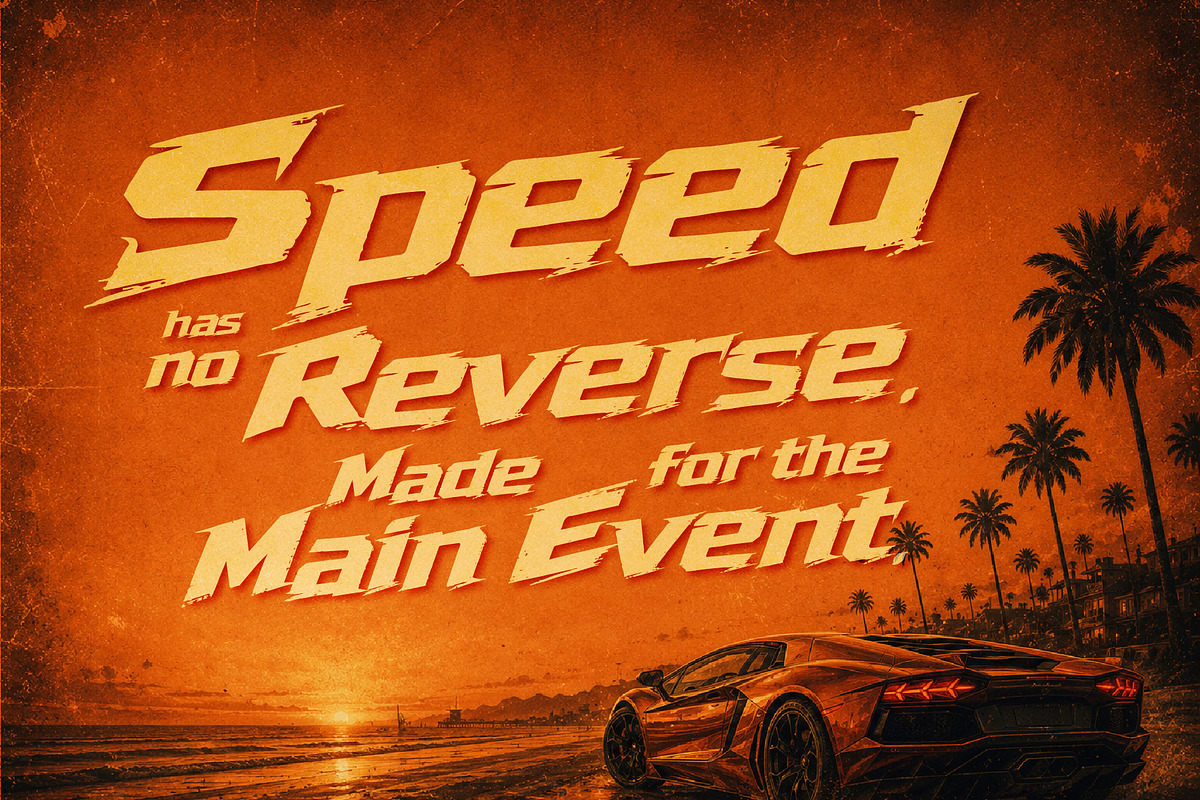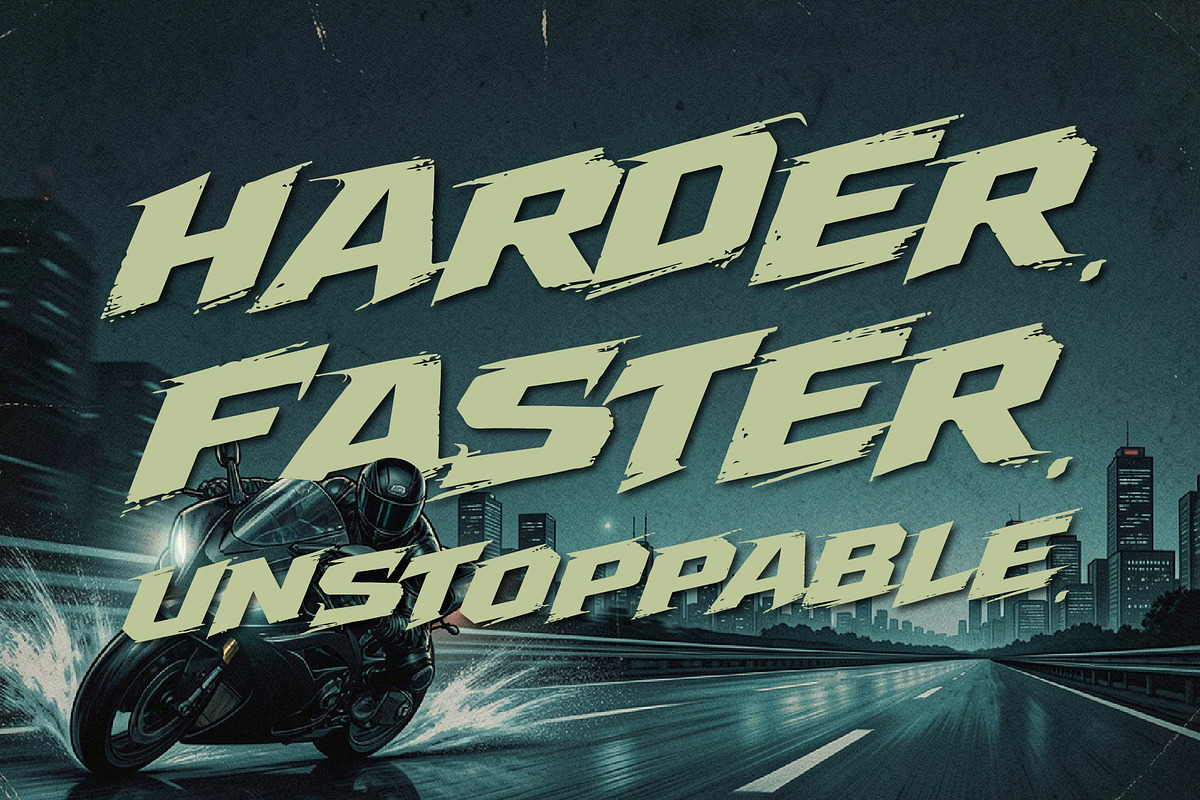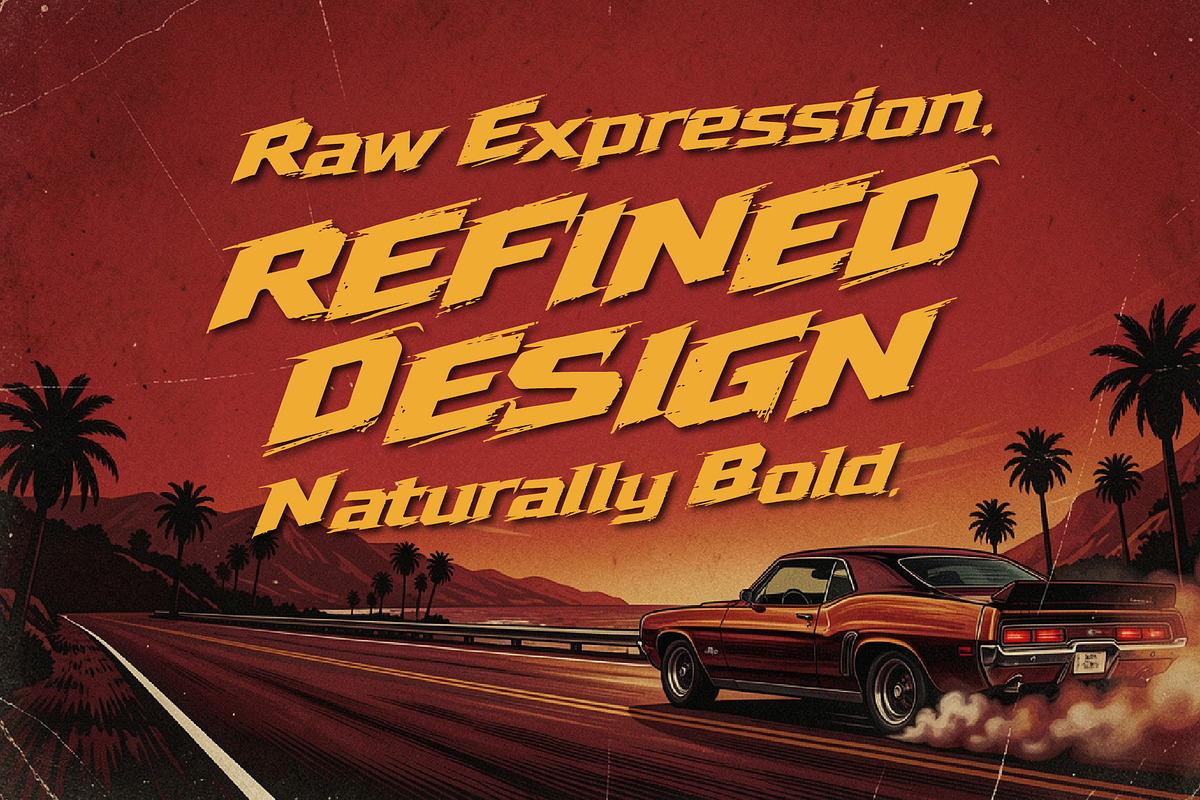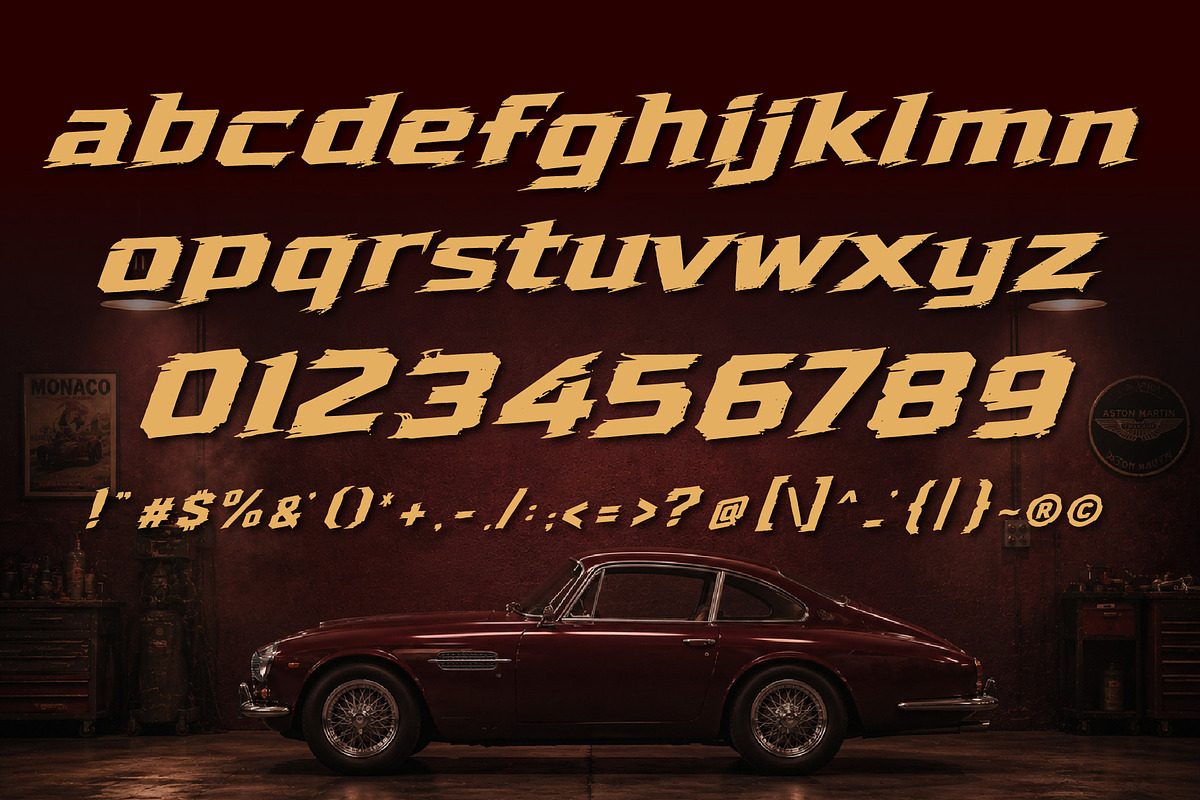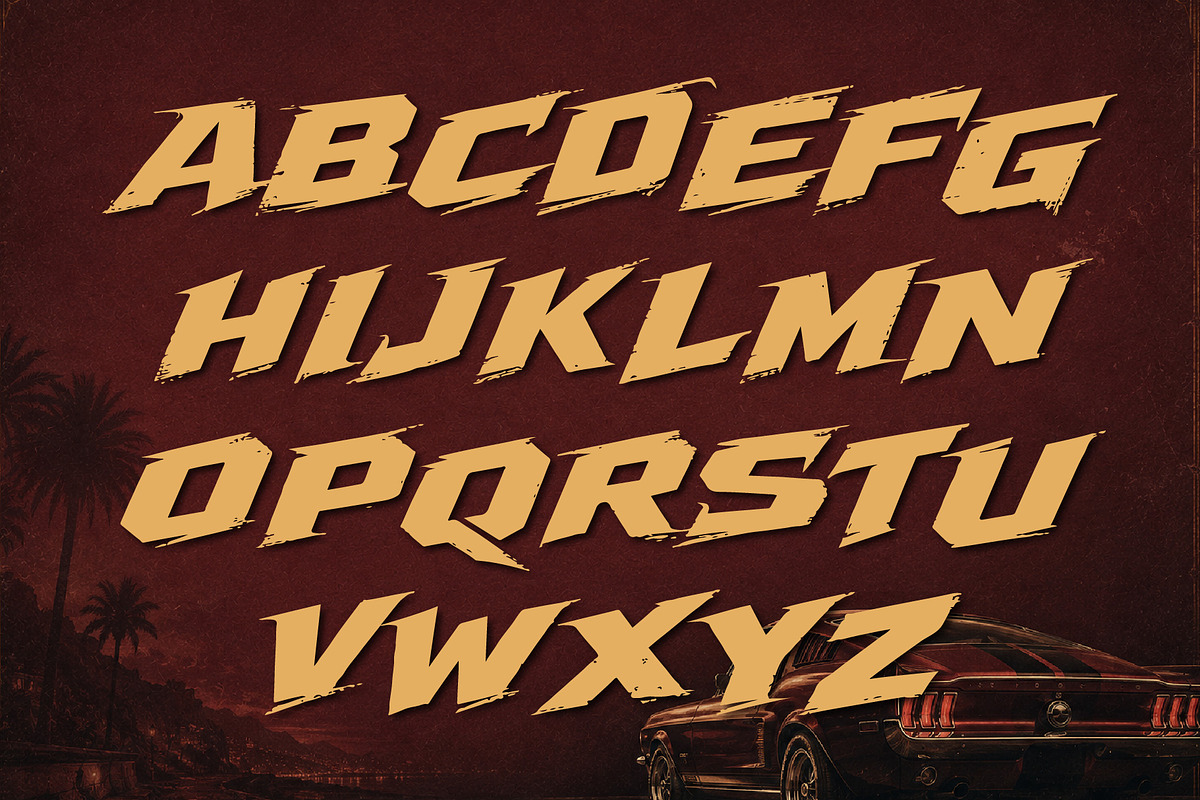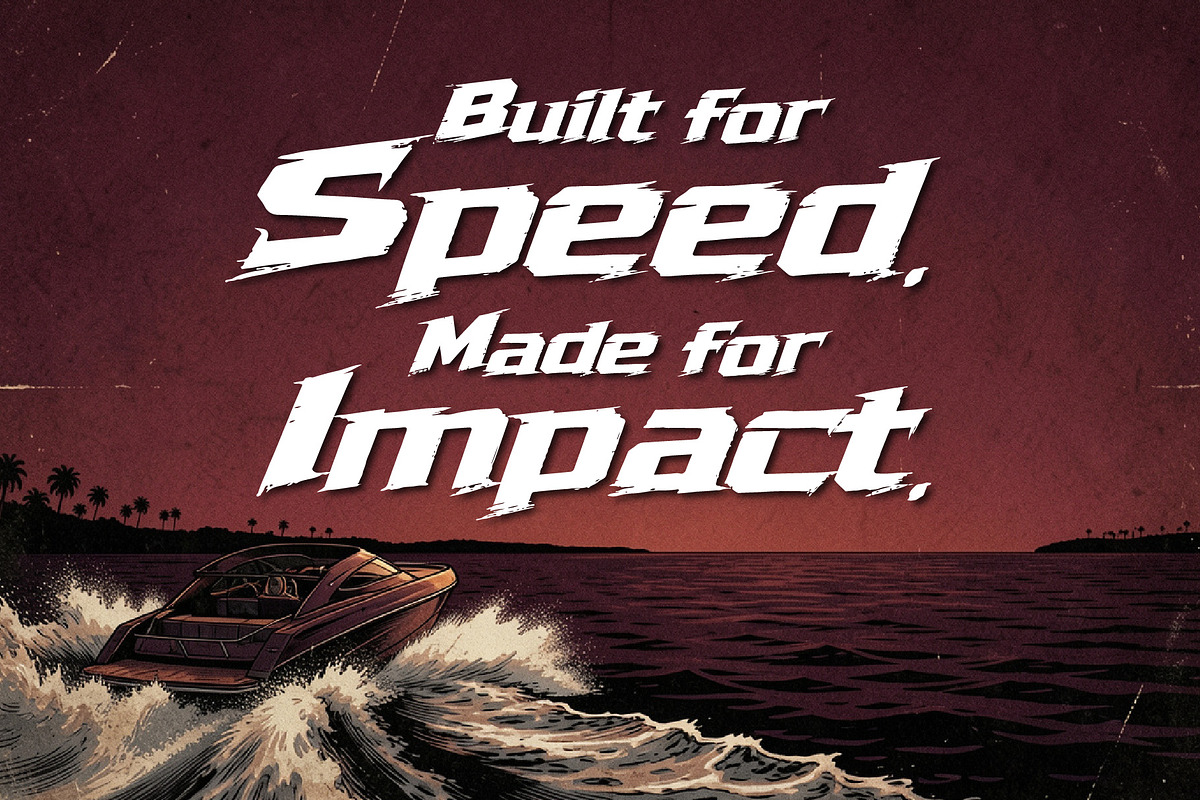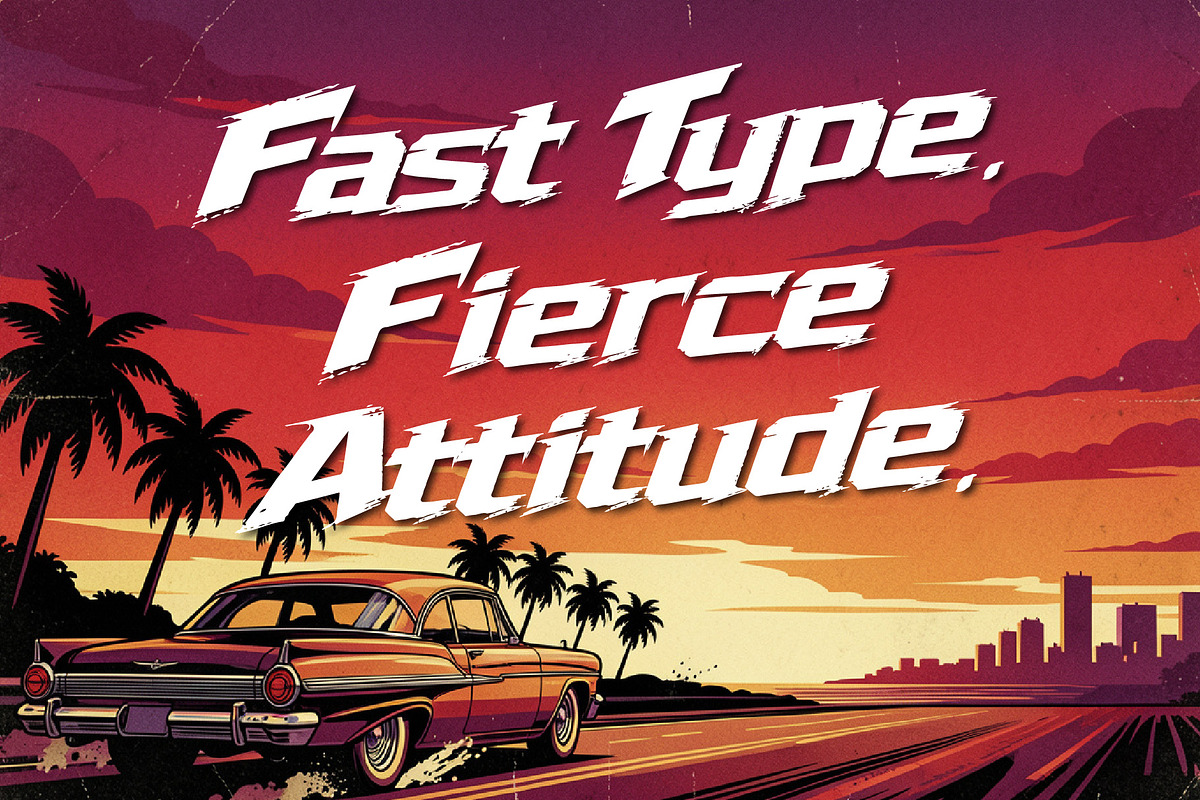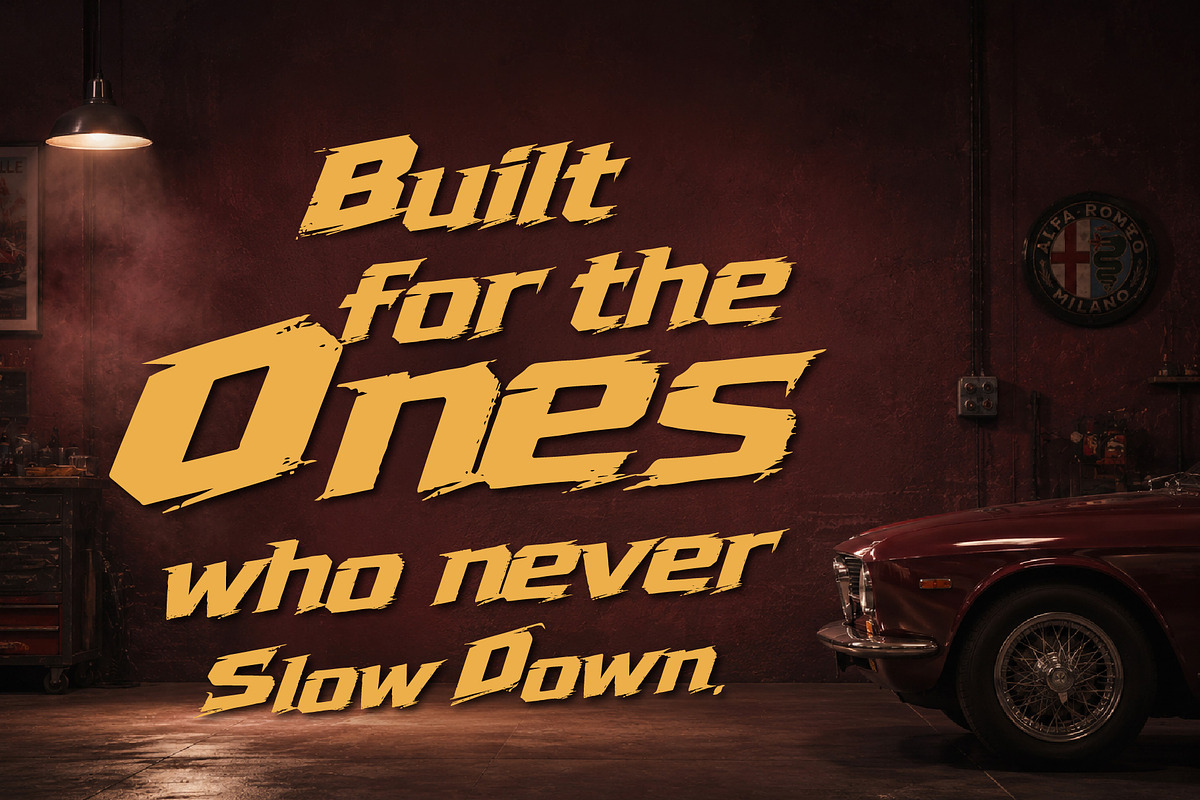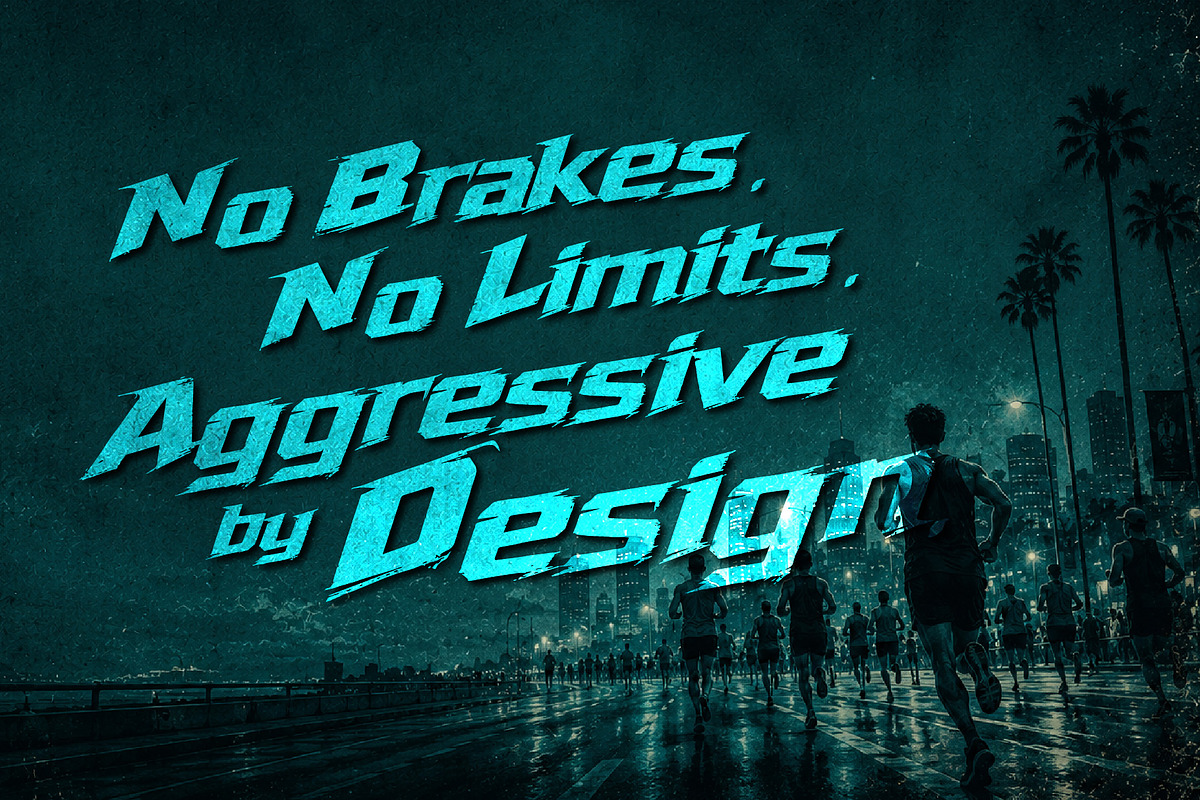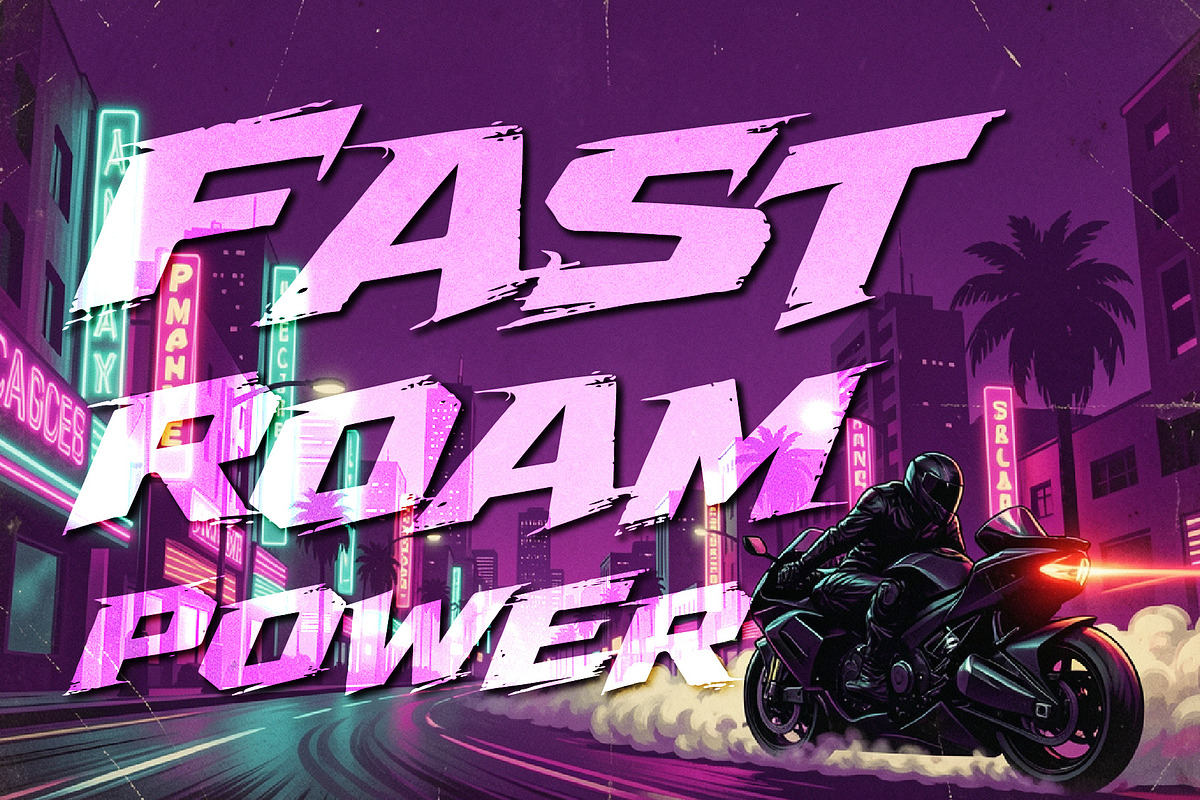
RageTrack - Fast Action Speed
RageTrack - A Sharp Bold Fast Action Display Font
RageTrack is a sharp, bold, and high-impact display typeface built for speed, tension, and adrenaline. Inspired by action movie posters, racing graphics, extreme sports, and gritty urban visuals, RageTrack combines aggressive angular forms with a slightly distressed, grunge-inspired texture.
Its strong silhouette and dynamic character make it perfect for movie titles, posters, sports branding, gaming graphics, album artwork, apparel, logos, headlines, and other projects that need an instant “GO!” feeling.
RageTrack is made to look fast even when standing still. 🥶🔥
Action movie posters
Racing & motorsport graphics
Sports branding
Gaming & esports
Album & music artwork
Streetwear & apparel
Event posters
Logos & branding
Editorial headlines
YouTube thumbnails & social media graphics